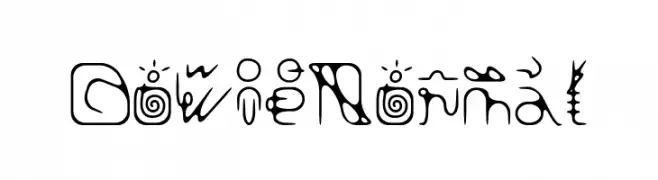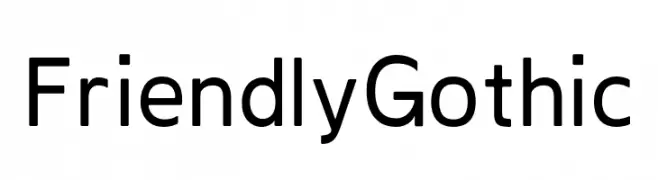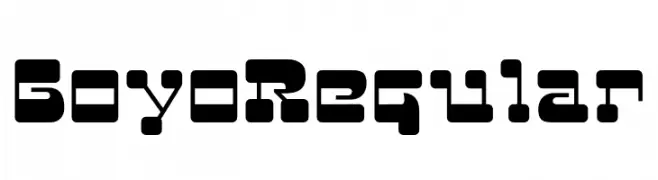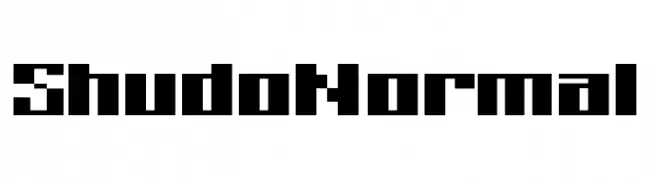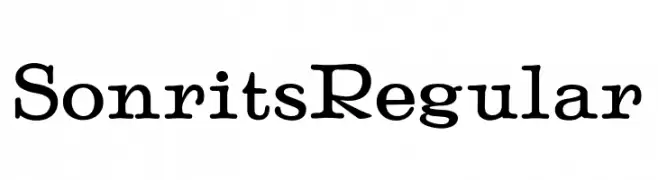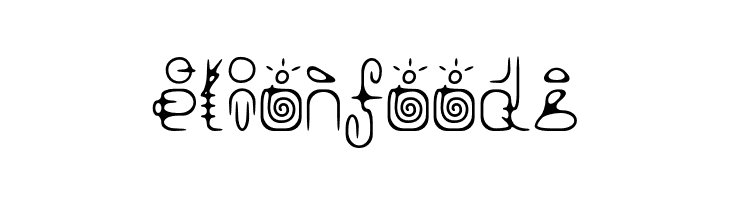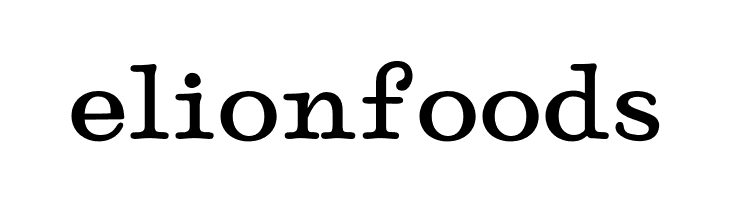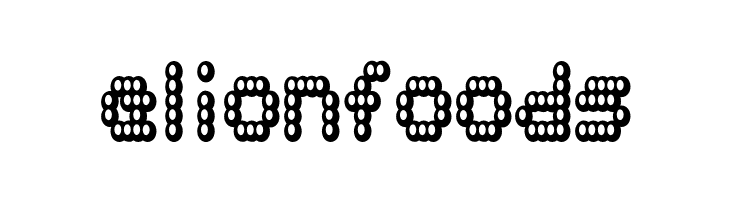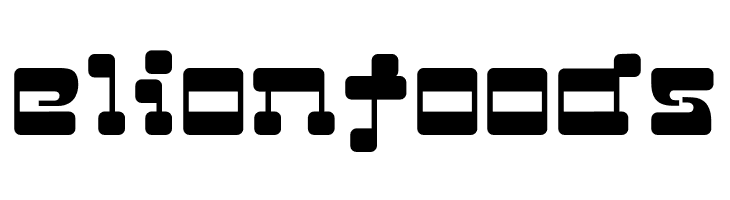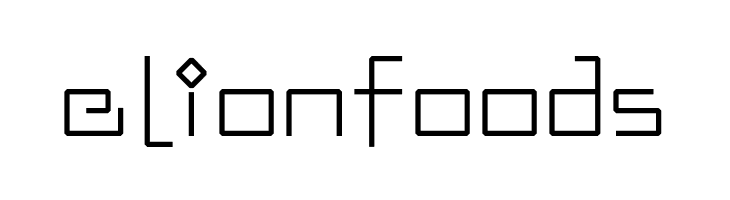
A bold, pixelated font with a retro digital aesthetic.
An artistic and decorative font with abstract, mystical letterforms.
A bold, narrow font with high contrast and a striking presence.
A bold, playful font with a cartoon-like, blocky design.
A classic serif font with elegant and well-defined characters.
A bold, futuristic font with geometric and block-like design.
A clean, modern sans-serif font with a balanced and versatile design.
A playful, dot-based decorative font with a modern and friendly appearance.
A bold, geometric font with a modular and futuristic design.
A geometric, futuristic font with angular, linear design and uniform stroke width.